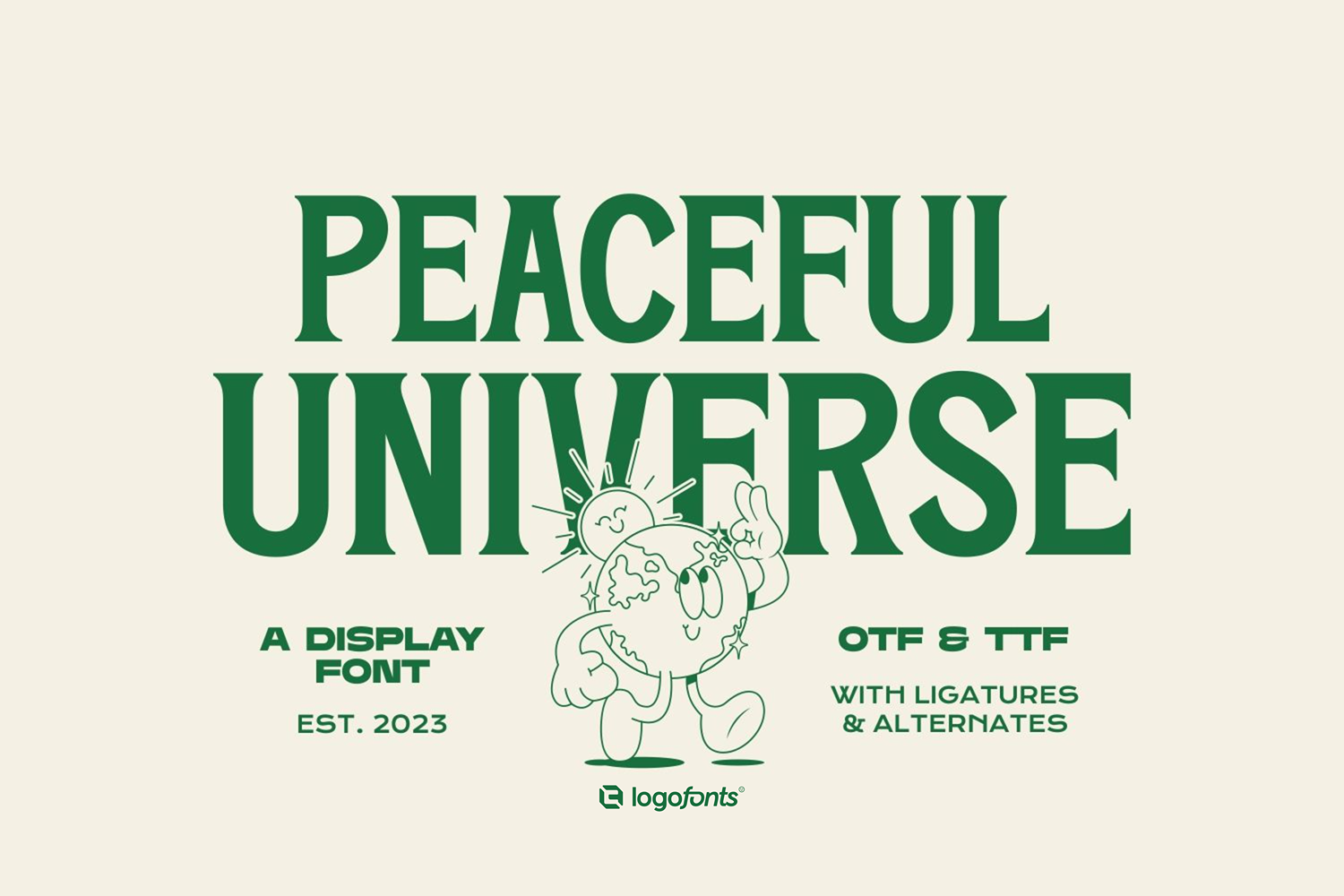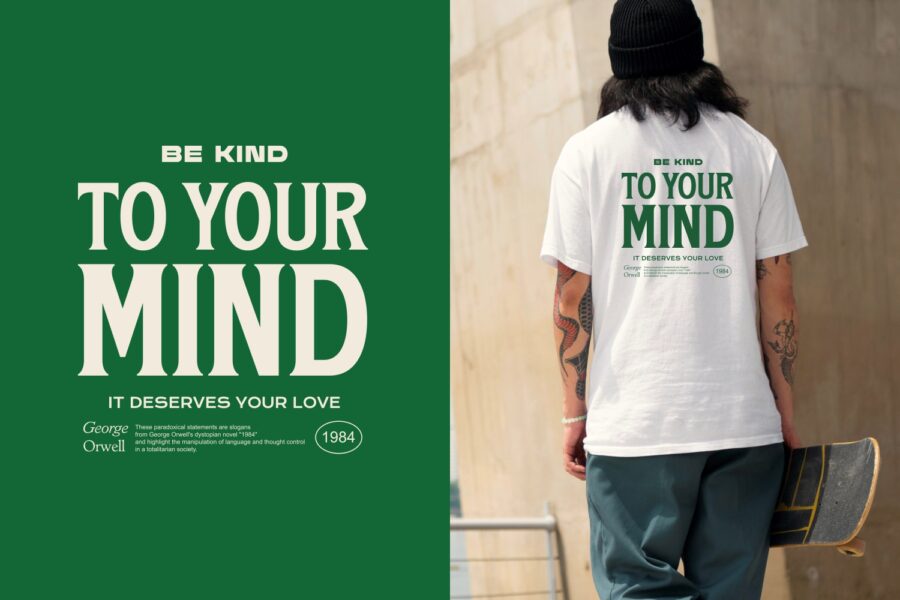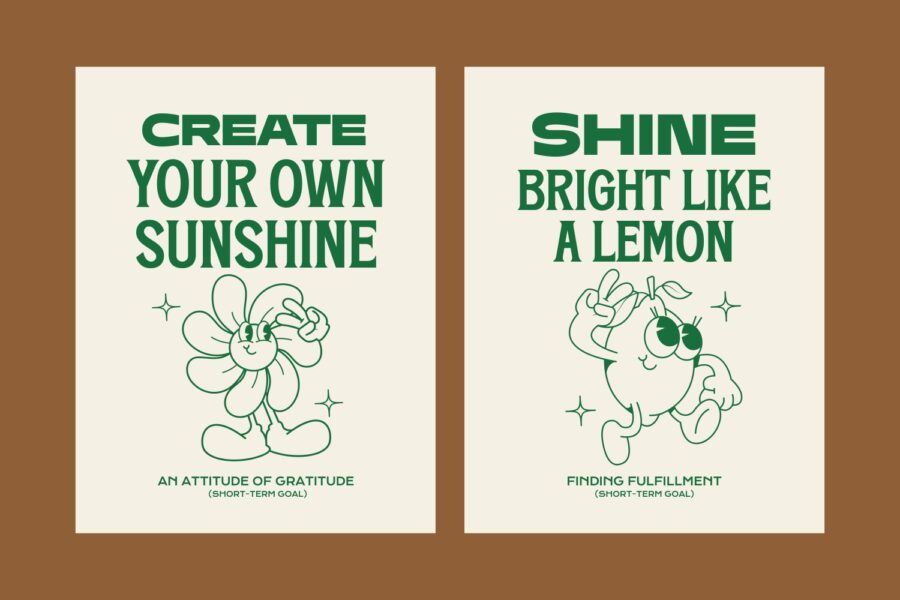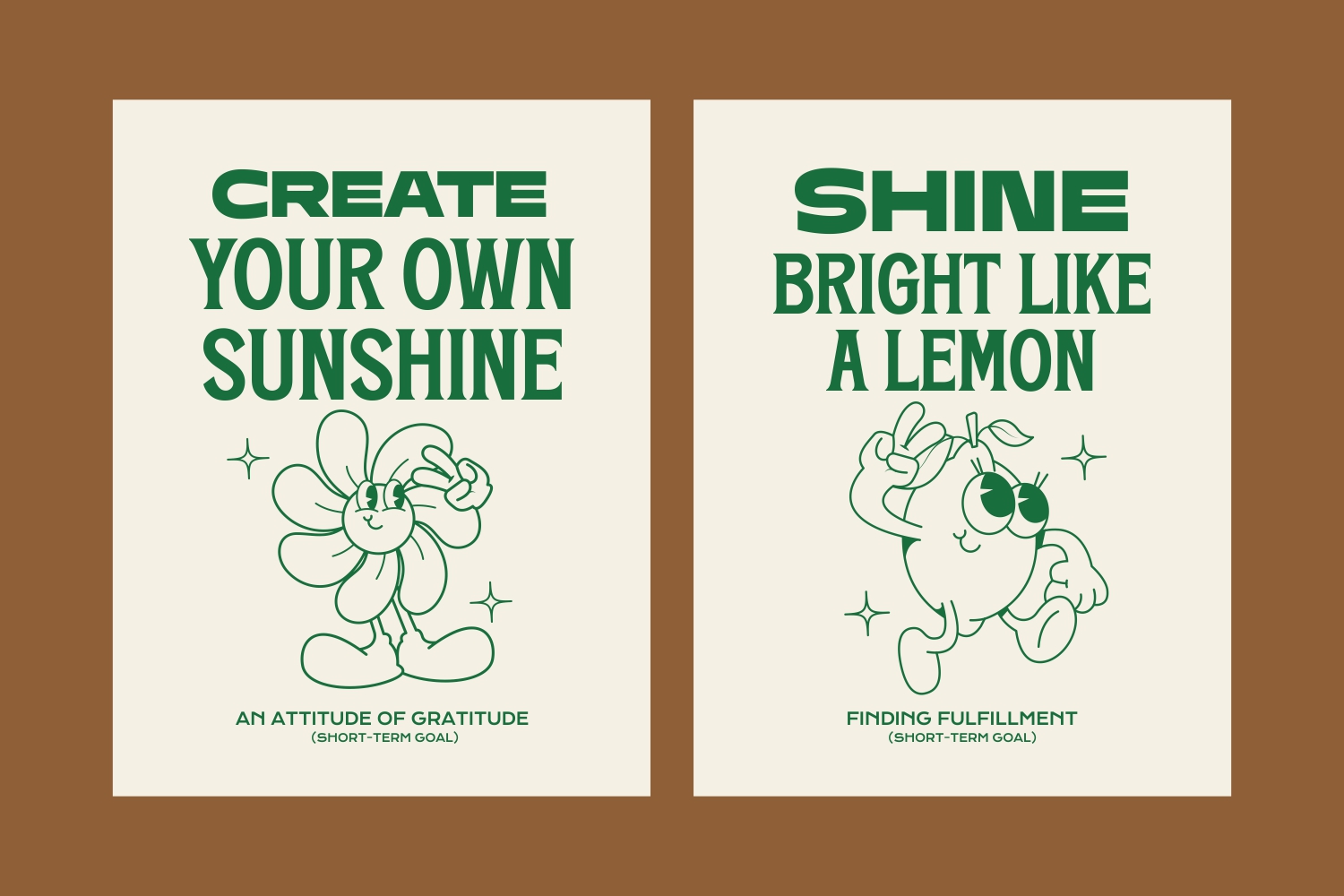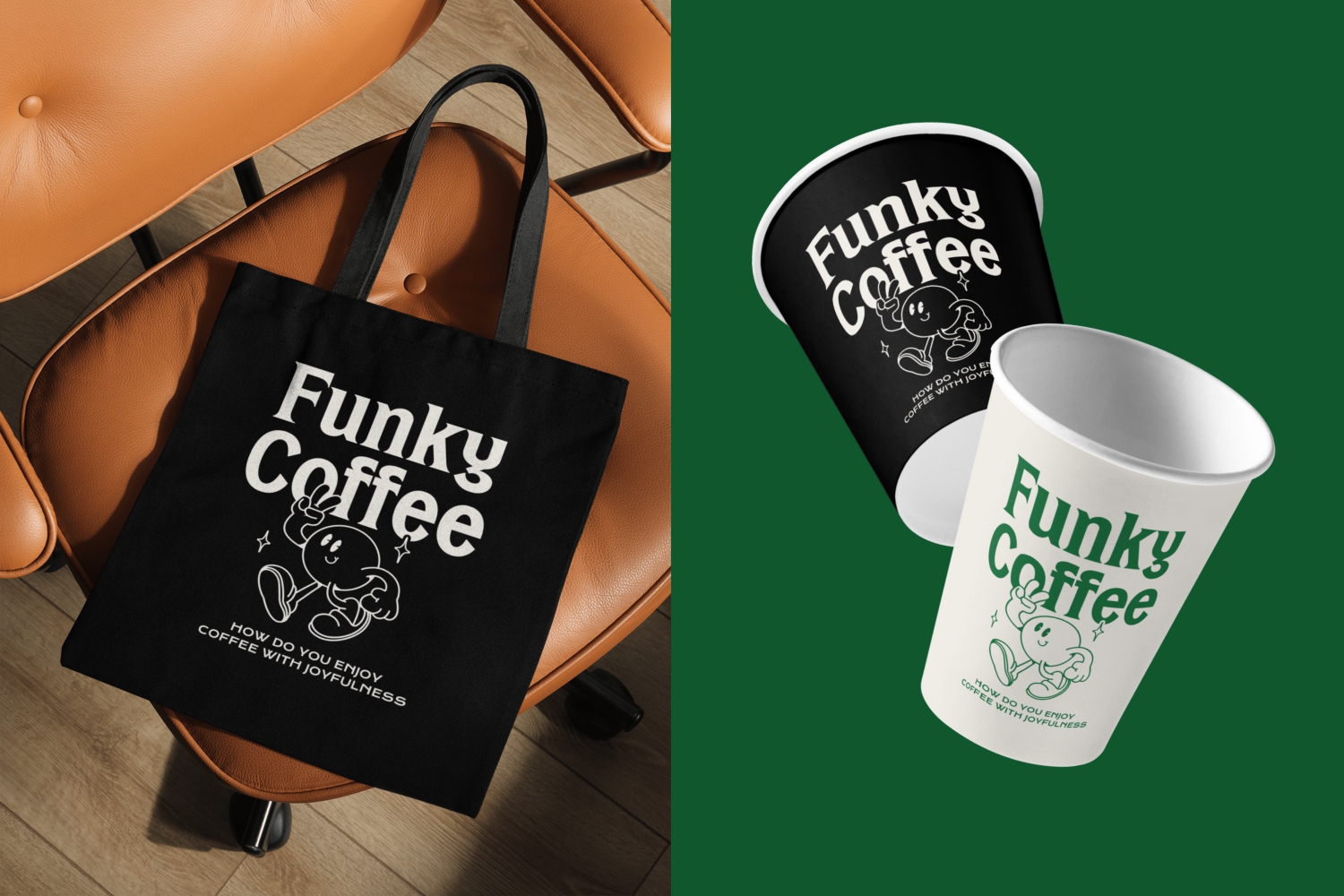
Peaceful Universe is a charming serif display font that blends retro inspiration with modern versatility. With high contrast strokes, whimsical curves, and playful alternates, it brings a joyful personality to your typography. Ideal for branding, posters, packaging, and apparel, this font adds character without compromising readability. It shines in both large headers and expressive merchandise.
This font includes ligatures, alternates, and multilingual support, making it adaptable for diverse design needs. Whether you’re creating motivational quotes, café branding, or artistic prints, Peaceful Universe injects warmth and friendliness into your message. Its vintage soul and contemporary twist make it a standout in any creative toolkit